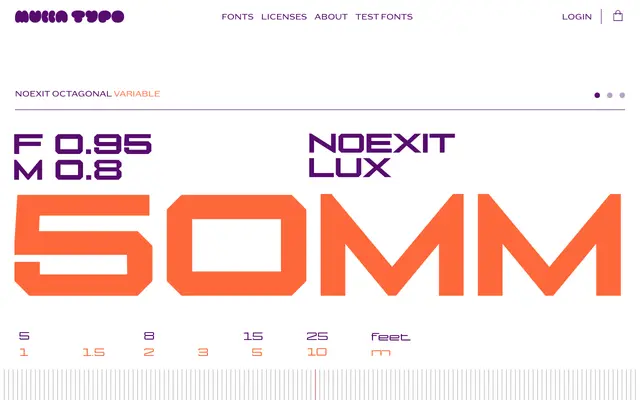
NoExit Octagonal
A variable octagonal display family spanning six width grades and four weights, with extensive OpenType alternates including multiple 'S' spine variants.
Built on octagonal letterform geometry with clipped corners, the family runs from Condensed through to UltraExpanded across four weights: Regular, SemiBold, Bold and Black. A variable font covers both the width and weight axes continuously, making it well suited to headline and branding work that demands flexibility across narrow and wide measures. OpenType features include case-sensitive forms, swash, fractions, single-storey 'a', double-storey 'g' and several distinct 'S' spine options, giving designers meaningful control over the character of the type.
The typeface takes its name and defining structural trait from its octagonal letterform geometry, a display-oriented construction with clipped corners that places it firmly in the geometric display category rather than any conventional grotesque or serif tradition.